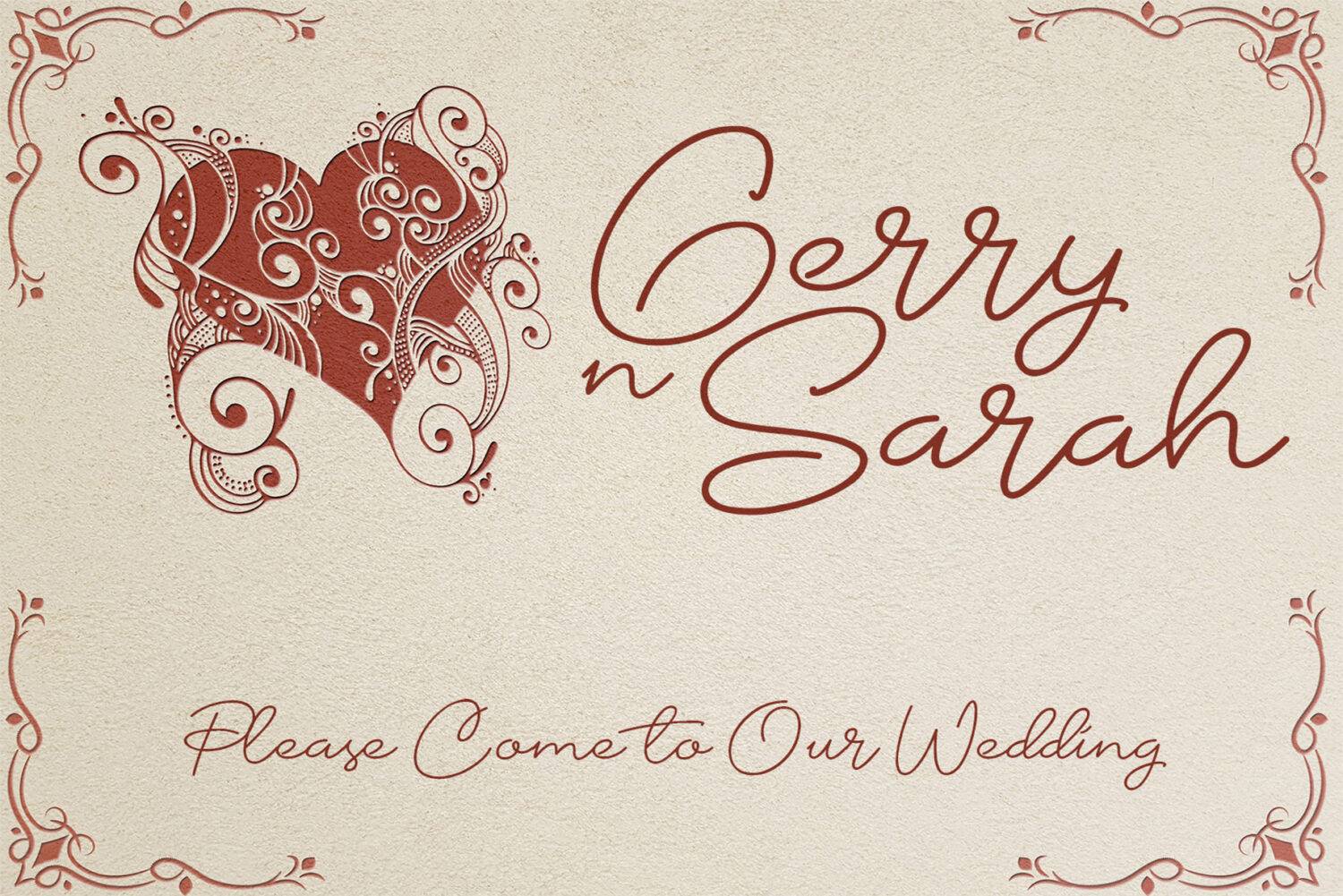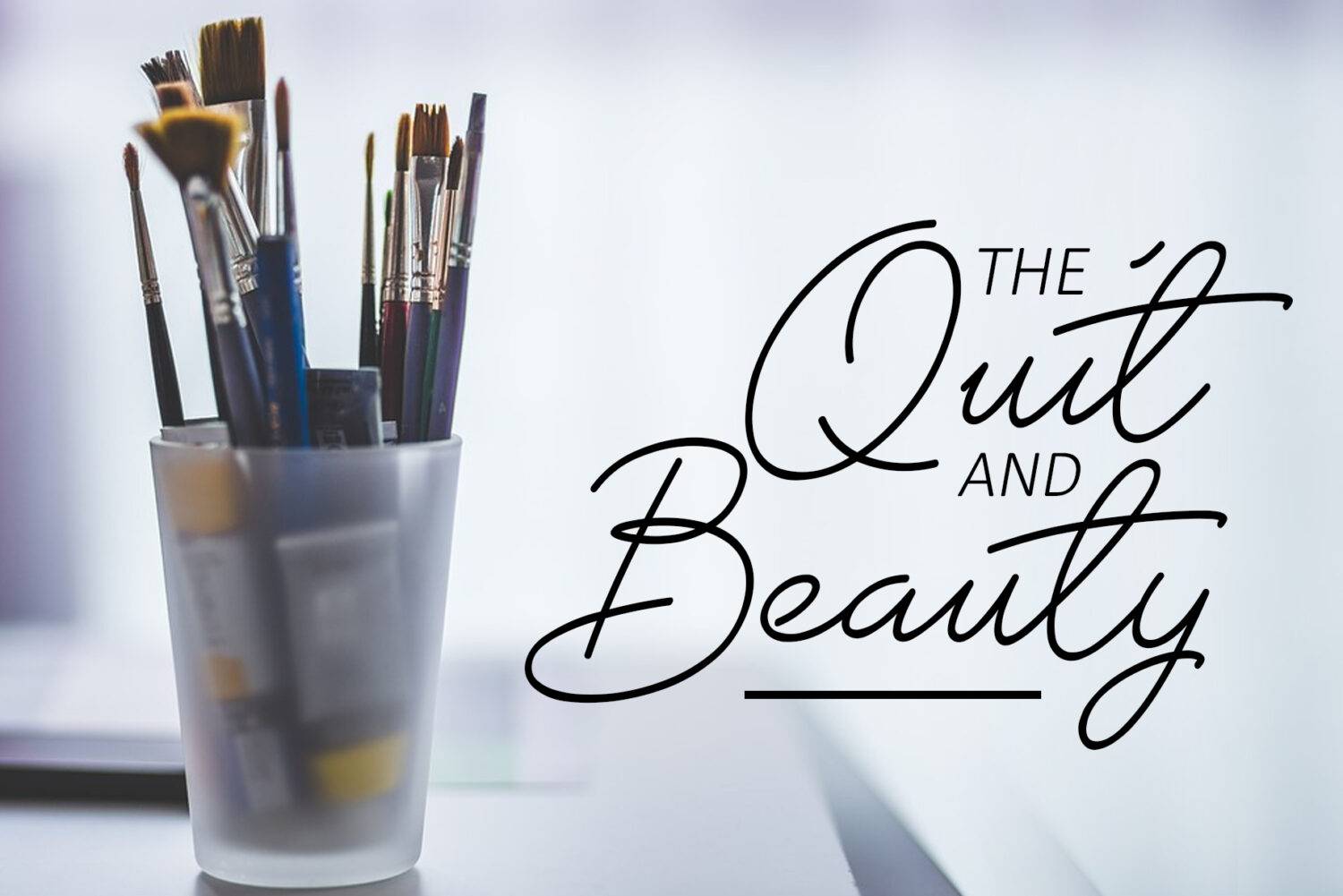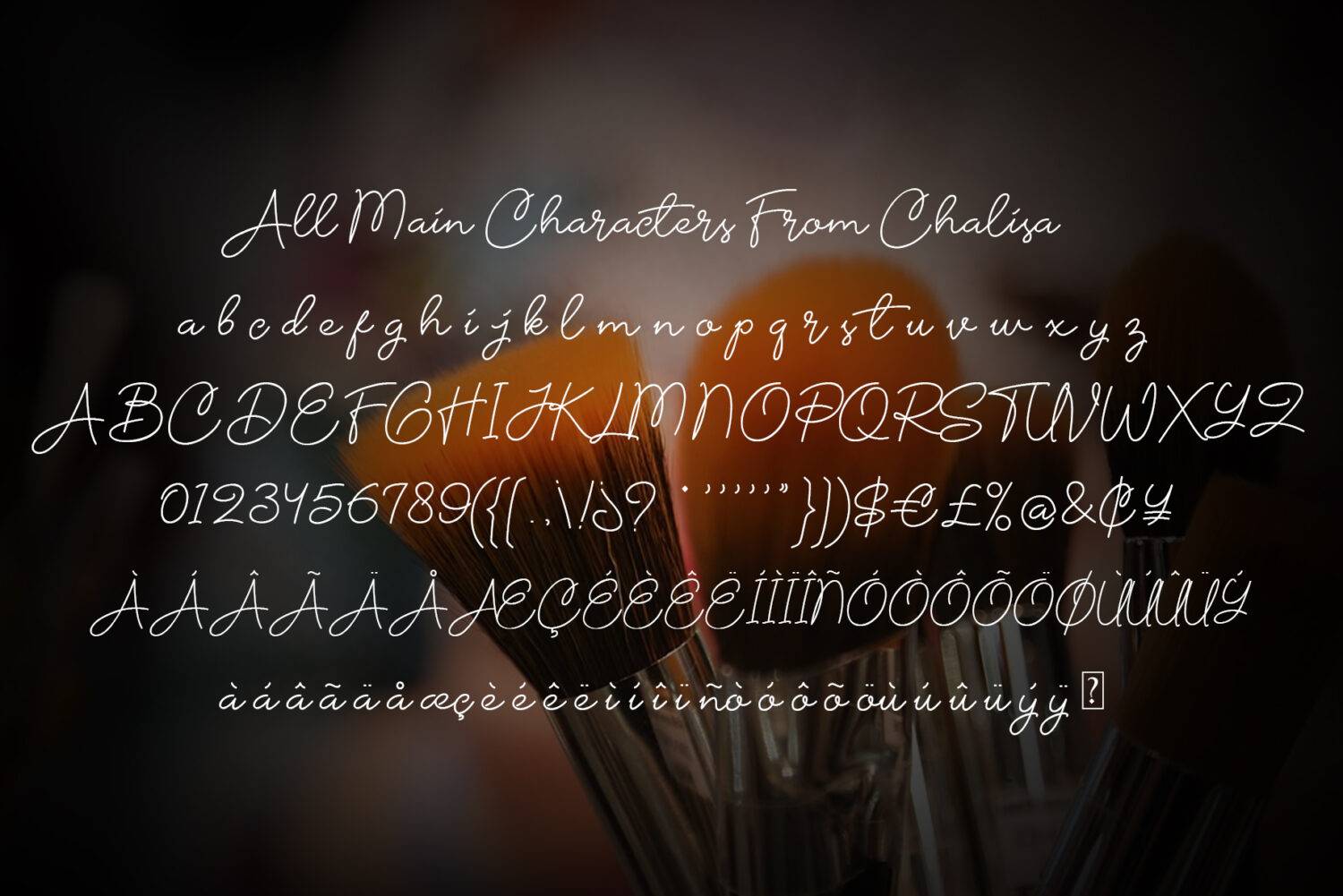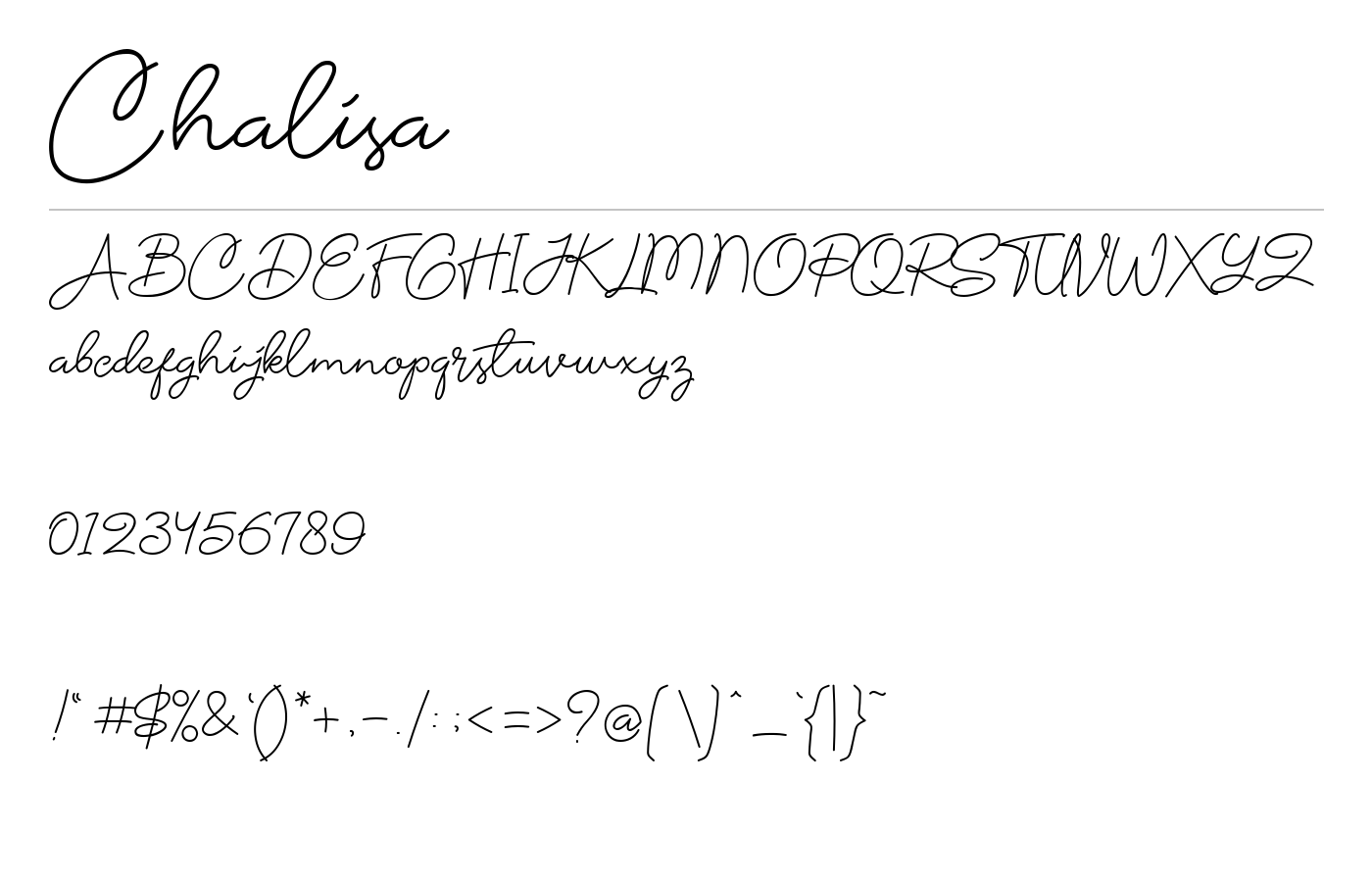
Chalisa Beauty Script is an elegant, thin script font with a delicate and flowing style that mimics natural handwriting. Its slender strokes and graceful letterforms convey a sophisticated and personal touch, making it perfect for branding, invitations, and any designs that seek a refined and intimate feel. This font works especially well in settings where a light, airy, and stylish aesthetic is desired.
Chalisa Beauty Script Font
About Chalisa Beauty Script Font